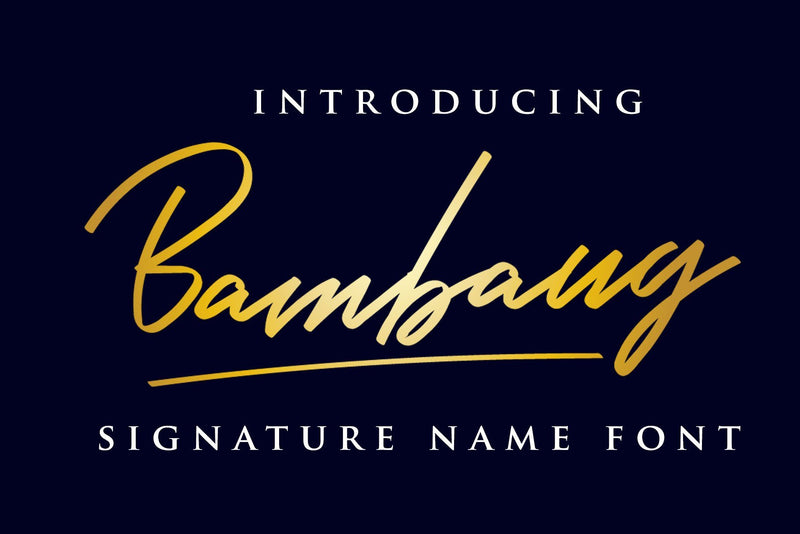
Bambang - Signature Font
Introducing, Bambang
Signature Name Font !
Inspired by Javanese old people's Name, which means "Soldier" or
"Warrior". Old people usually used this style to wrote their name or
letters. It has a "manly", bold and strong character handwritten style.
Will looks great for your letter, name card, branding or tagline in your
product design.
- Standard Characters (Uppercase and lowercase)
- Standard symbols
- Extra 26 Swashes Line